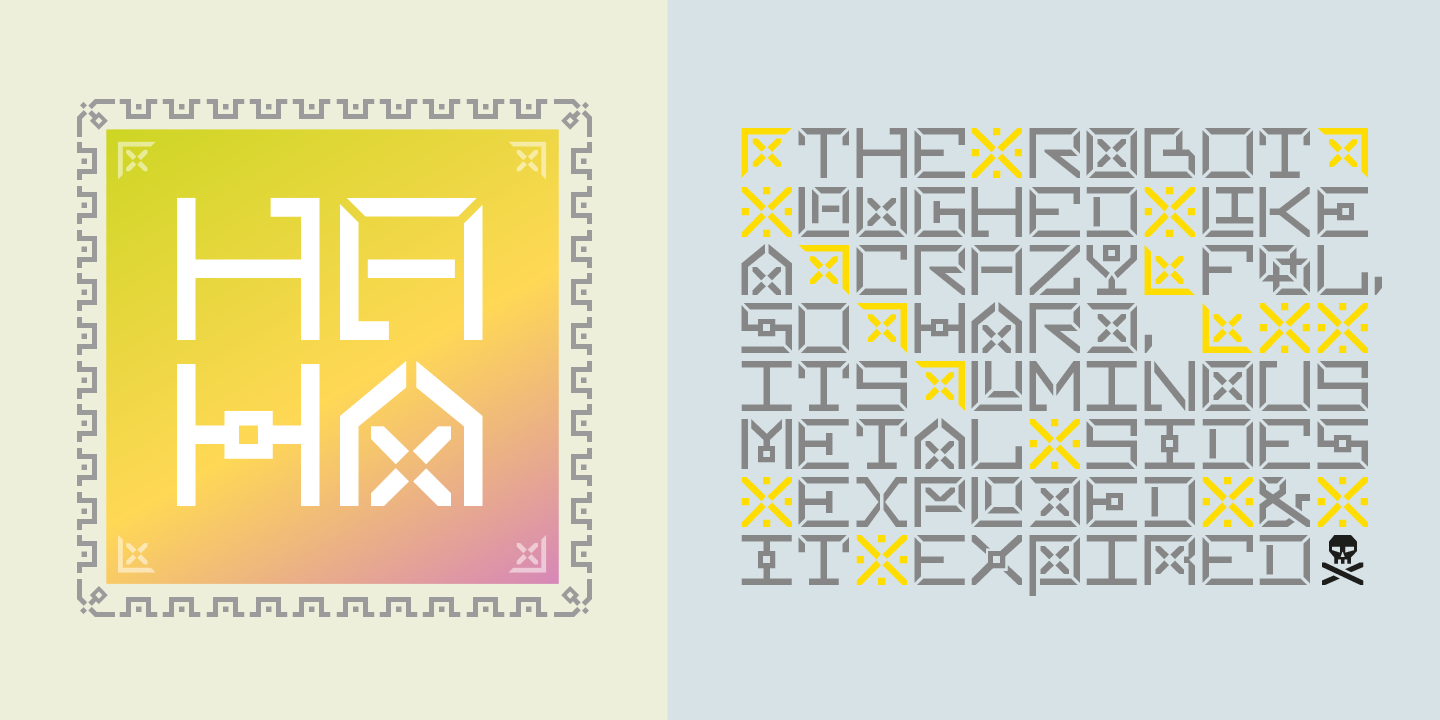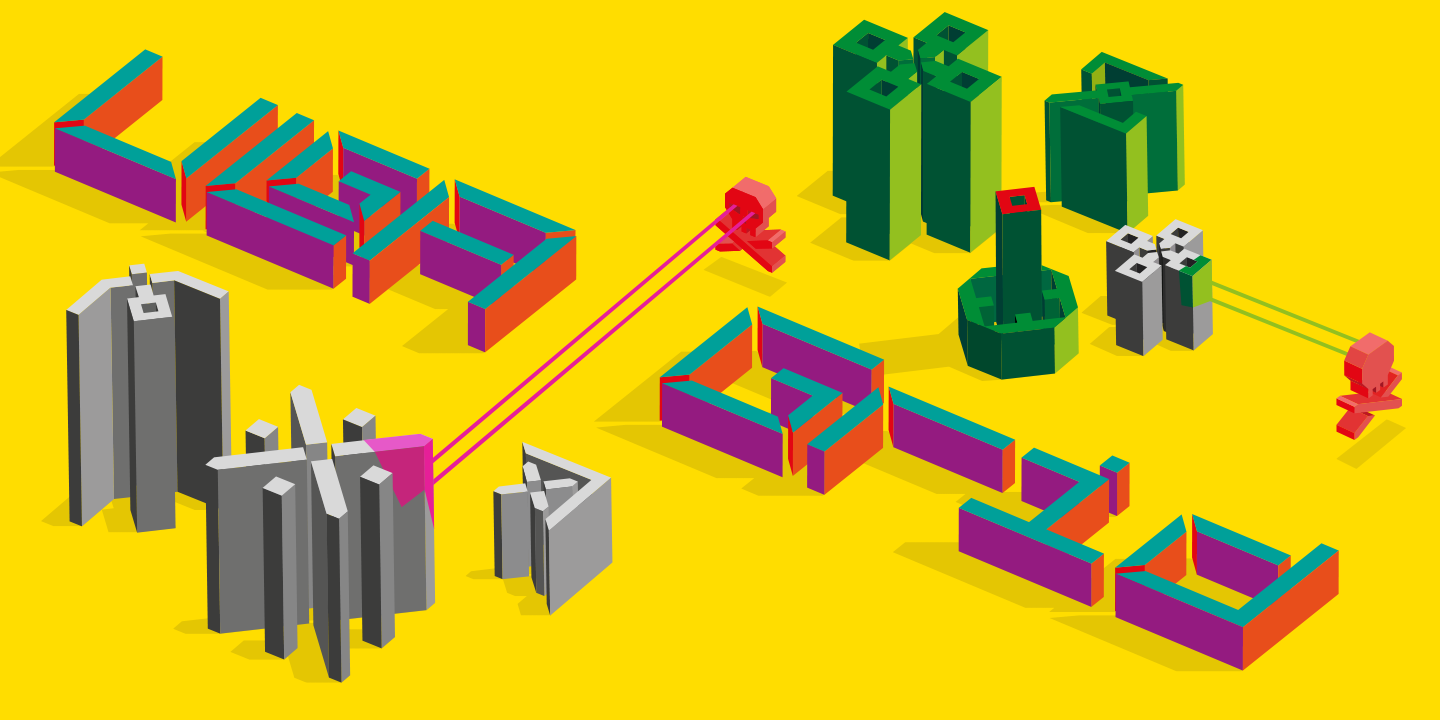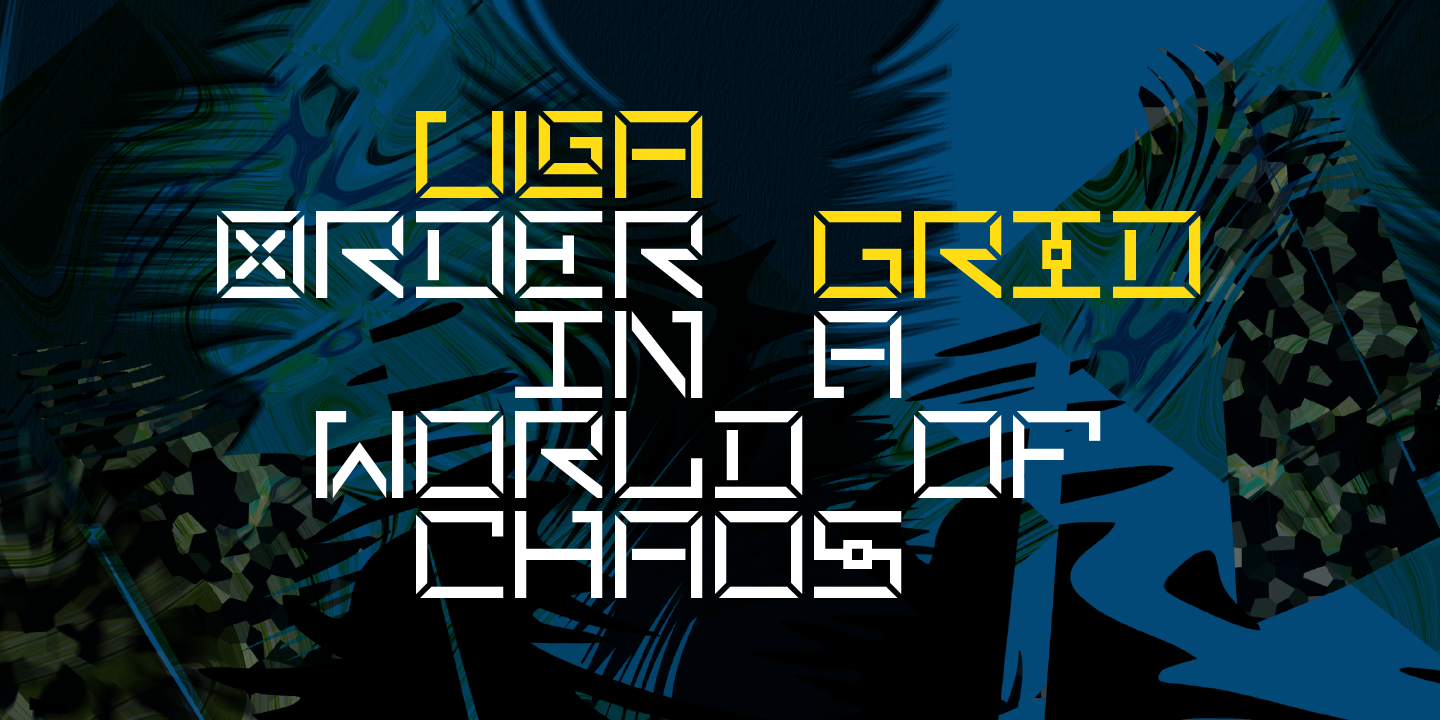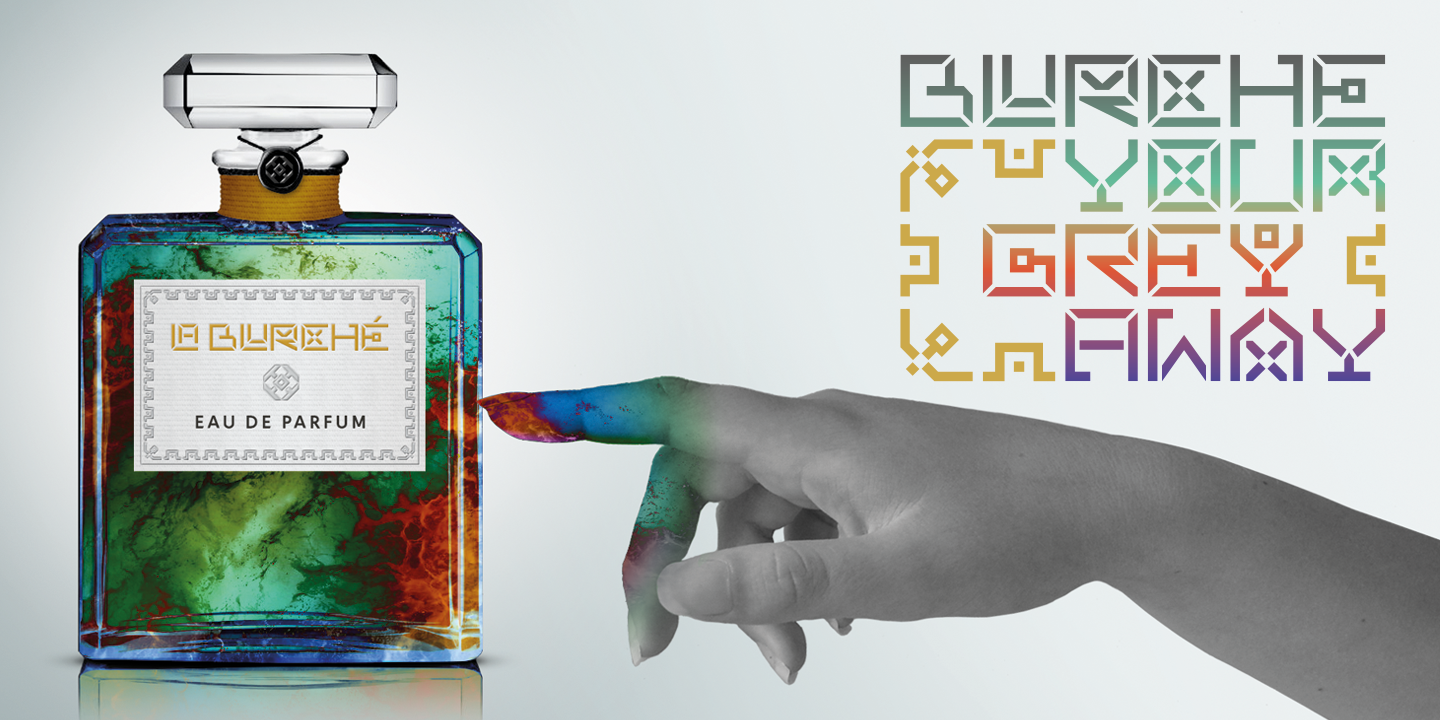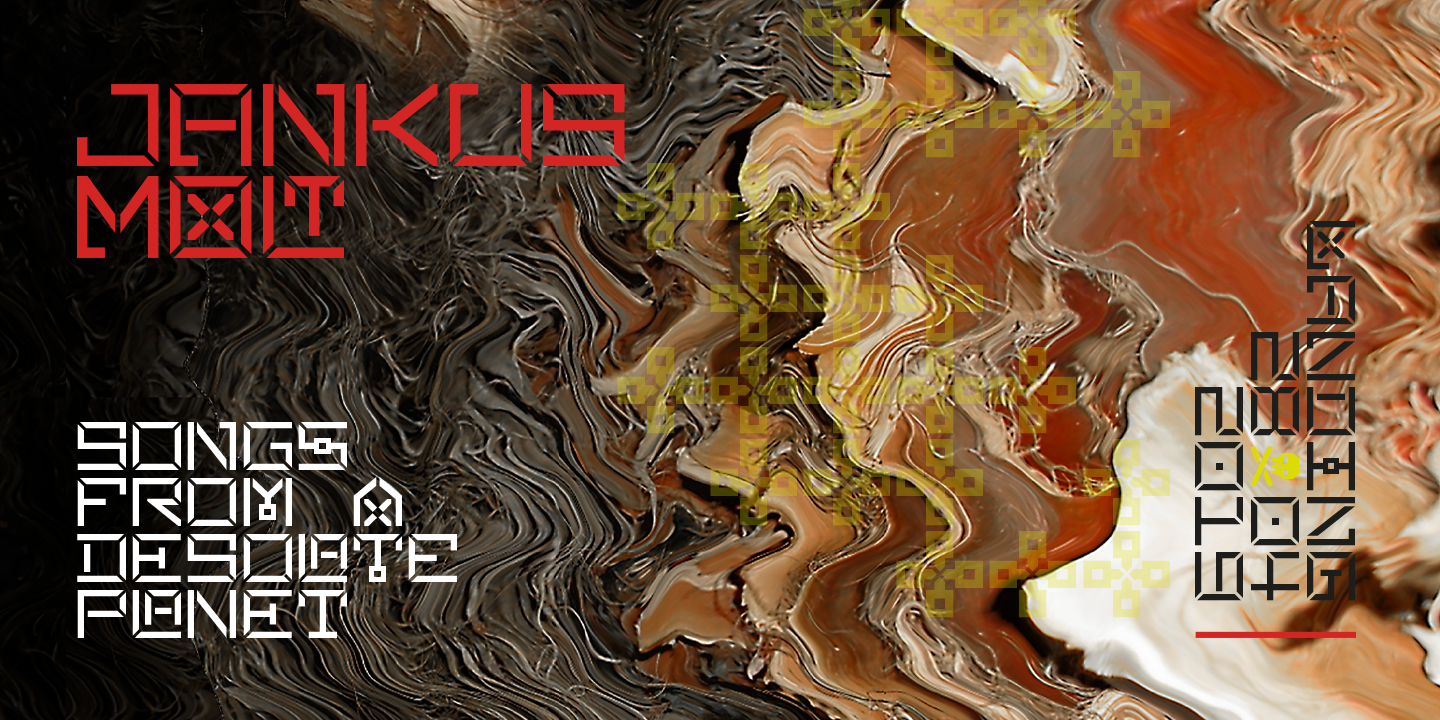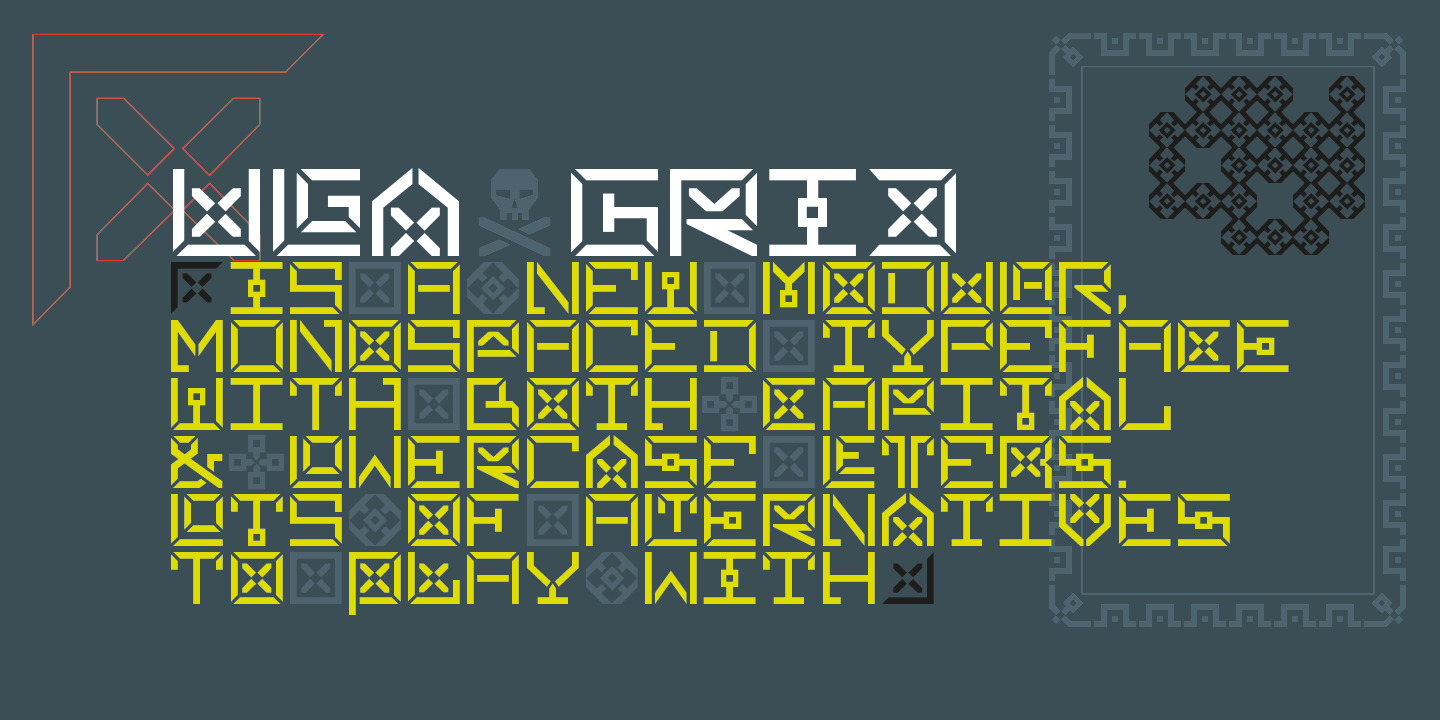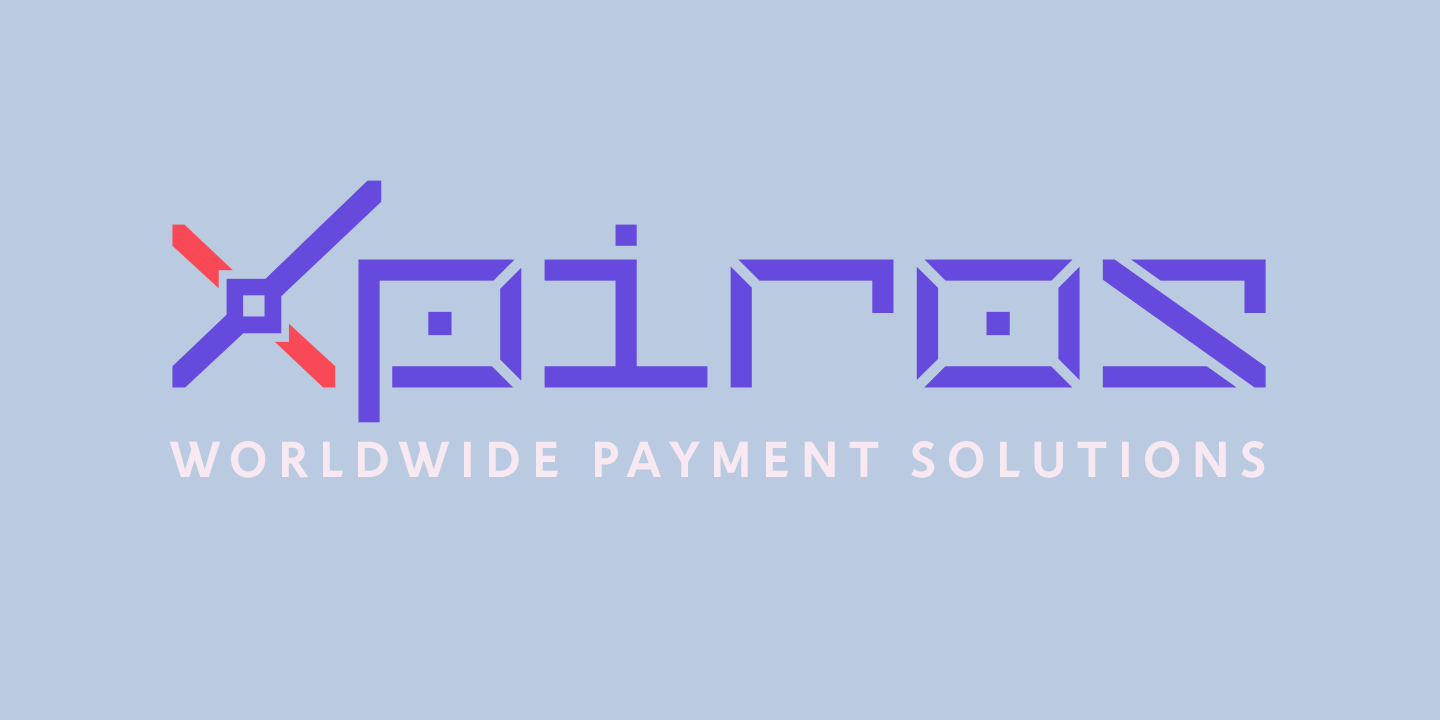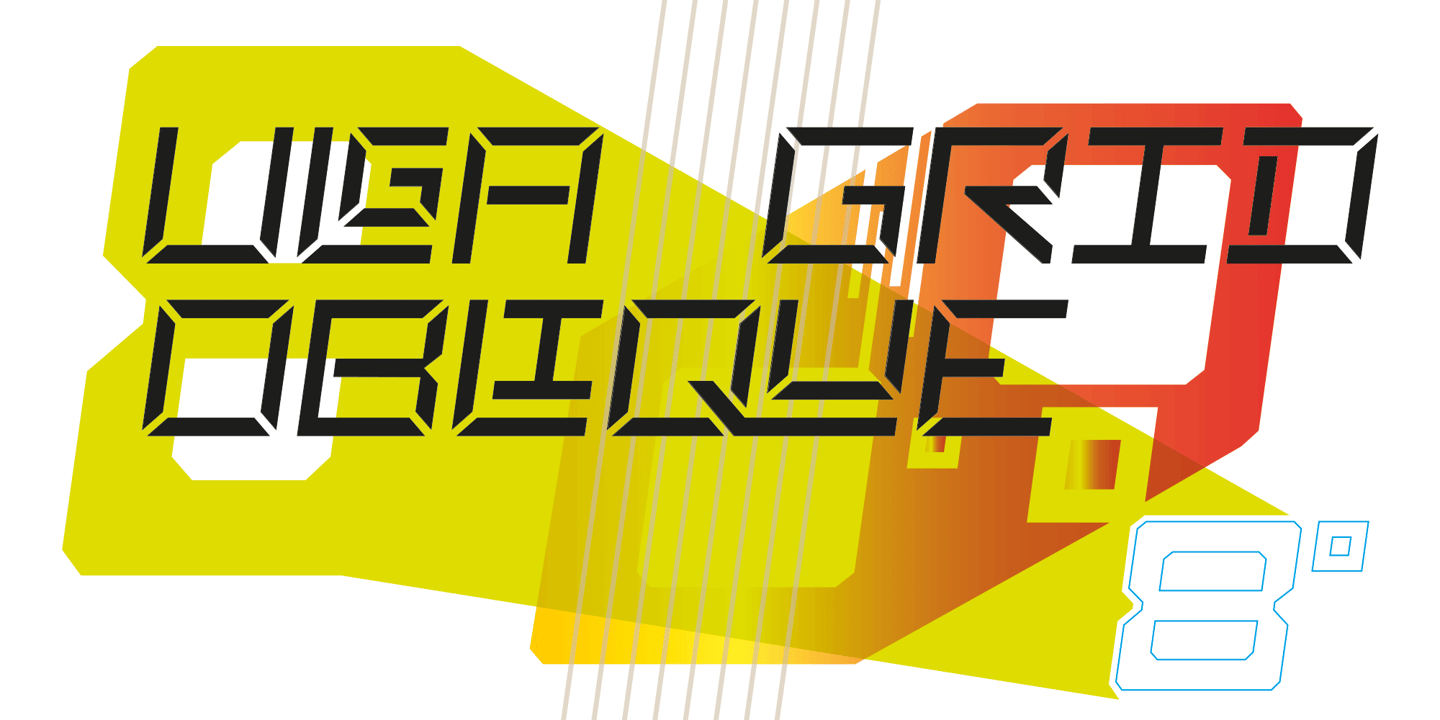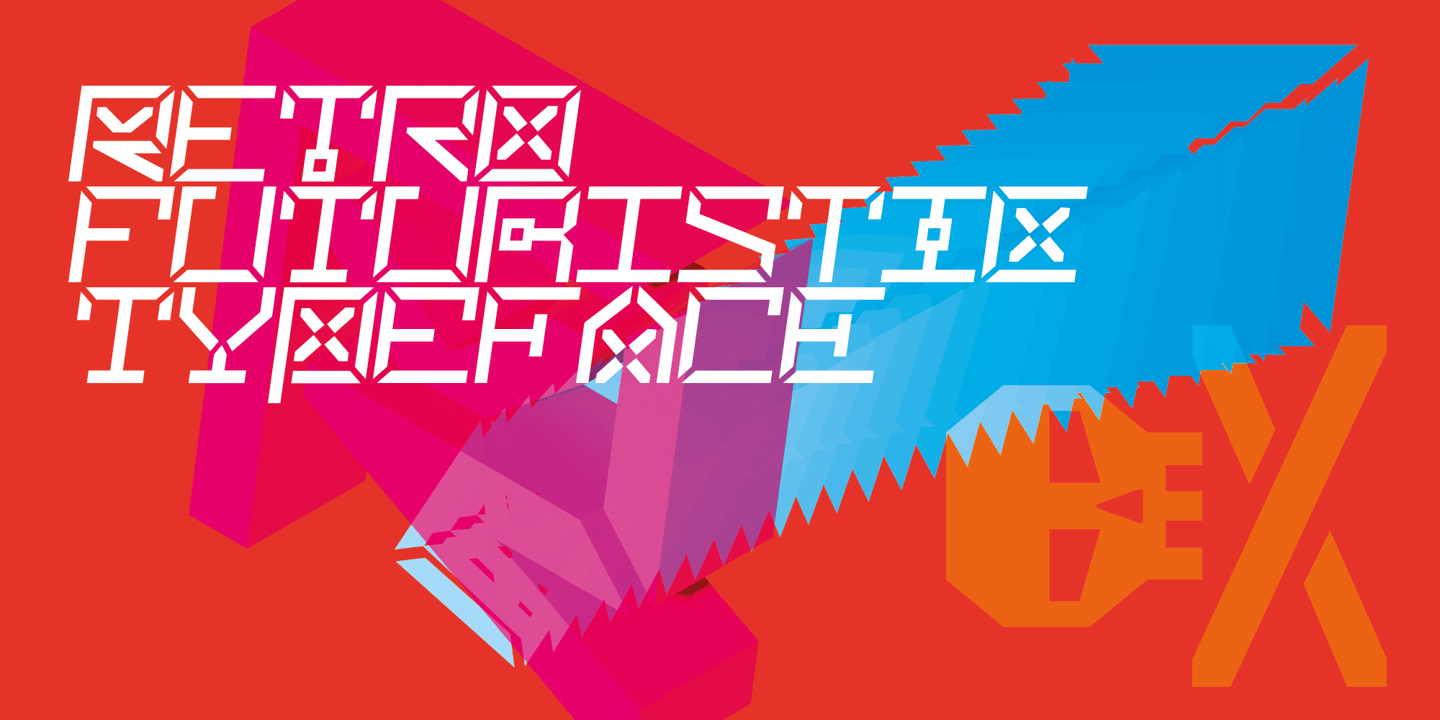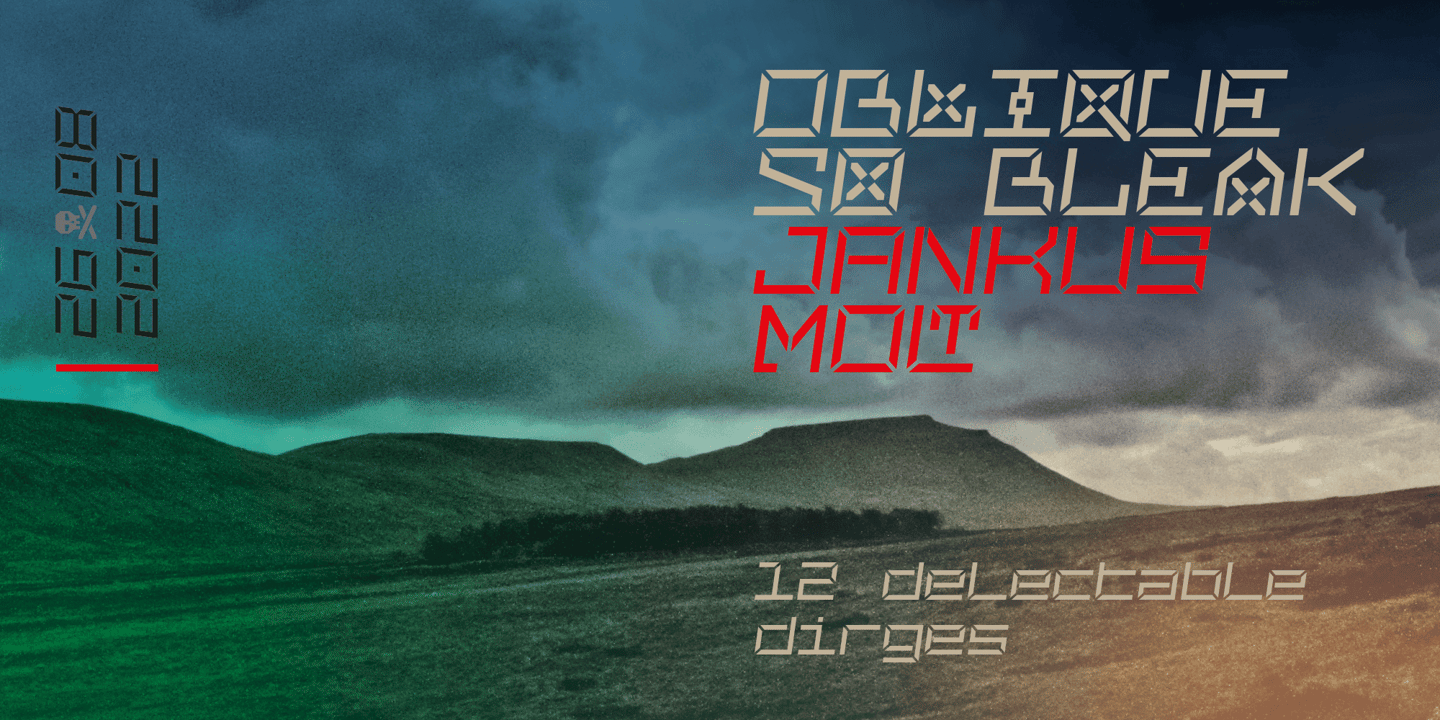
ULGA Grid is a modular, monospaced typeface reminiscent of the old Letraset LCD & Quartz typefaces from the 1970/80s with lots of alternative characters and ornaments to bring a fresh twist to the genre.
The idea’s seed germinated while I was going through a phase of binge watching my favourite 1980/90s sci-fi movies (classics such as Terminator, Total Recall and RoboCop). However, perception and reality don’t always align. Thirty years later, when compared to today’s technology, some visual elements look kind of outdated, almost Retro Futuristic.
The initial design process started out in Adobe Illustrator when I constructed letters from a few geometric shapes within a square block. Just playing around with different shapes was so engrossing that it wasn’t long before there were enough characters for a basic typeface. The project grew again as I experimented with designs within the shapes and set paragraphs of text in patterns, resulting in over a hundred alternative characters and ornaments, some of which double up as border designs.
This typeface may be square but it’s anything but boring. What it lacks in legibility ULGA Grid makes up for in style and the end result is a surprisingly versatile typeface that you'll have fun using for a wide range of display purposes including CD covers, posters, packaging, advertising, brochures and film titles. Ironically, the fixed grid structure frees the characters to create patterns of text not possible with variable widths.